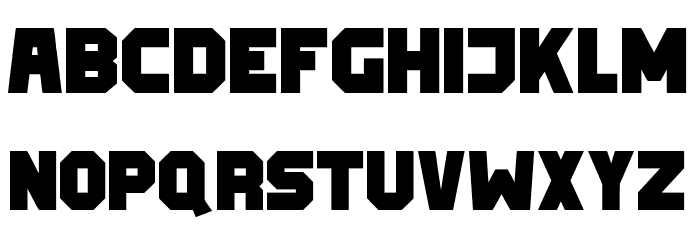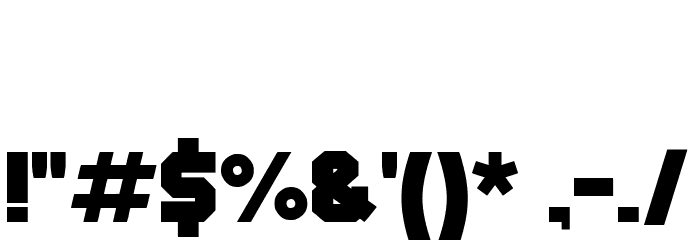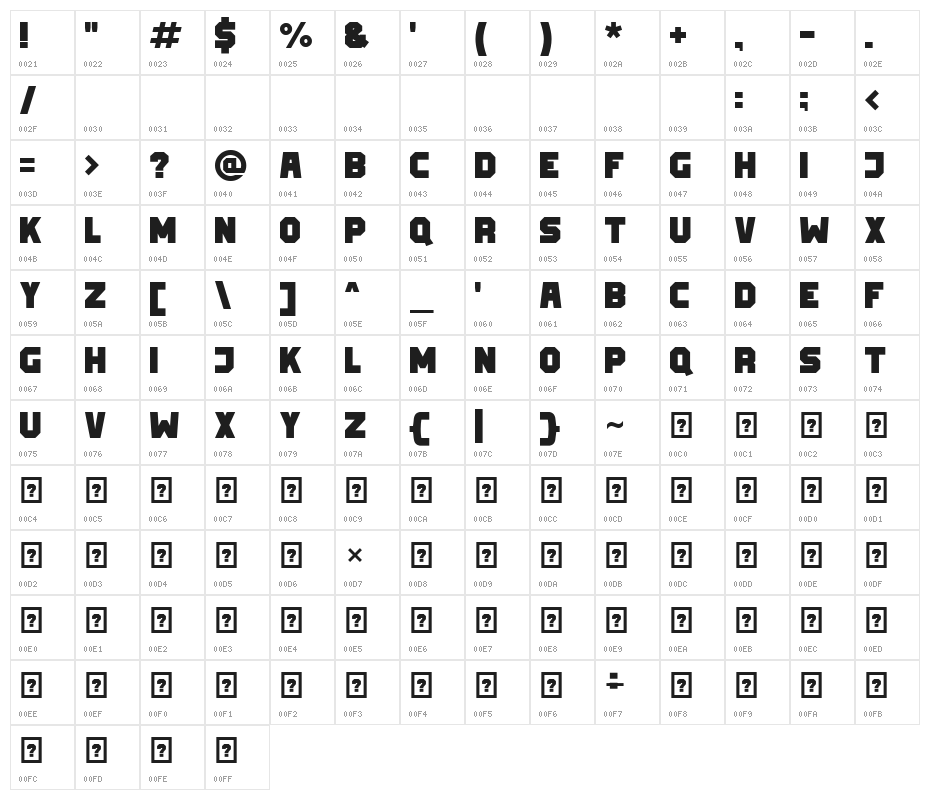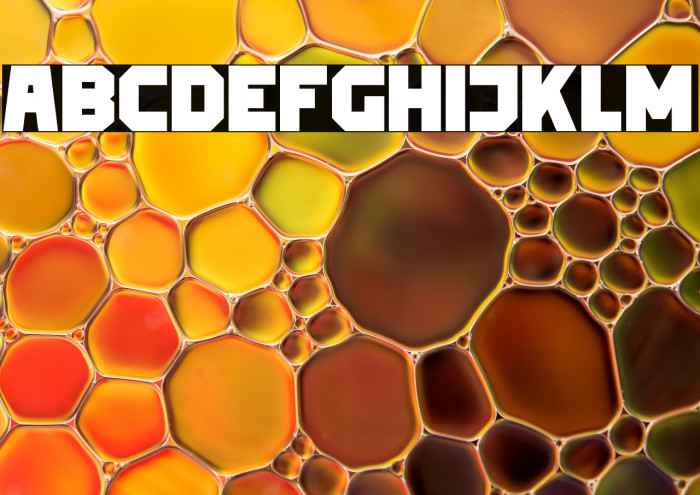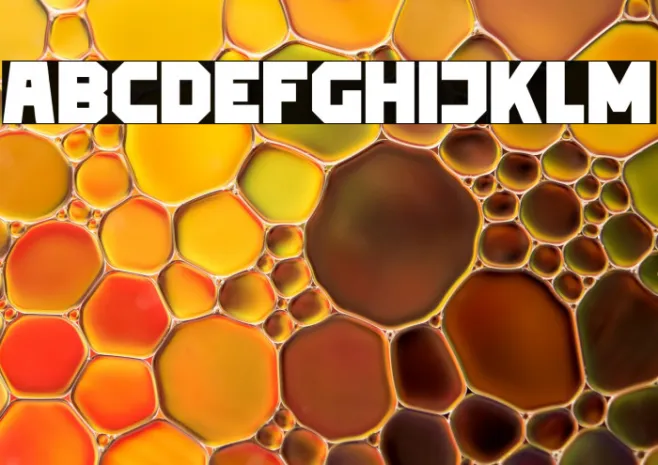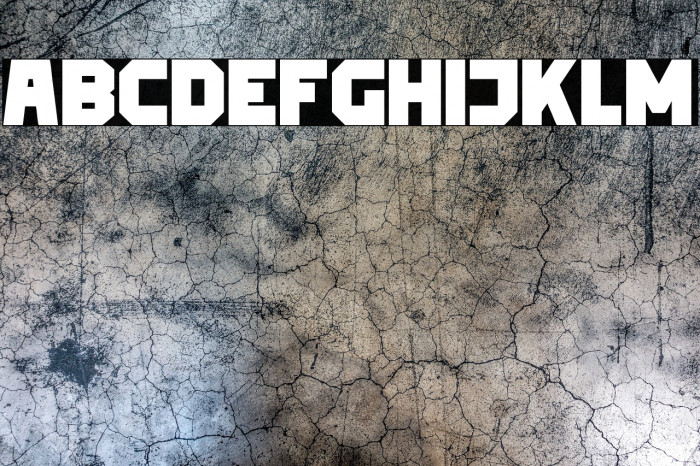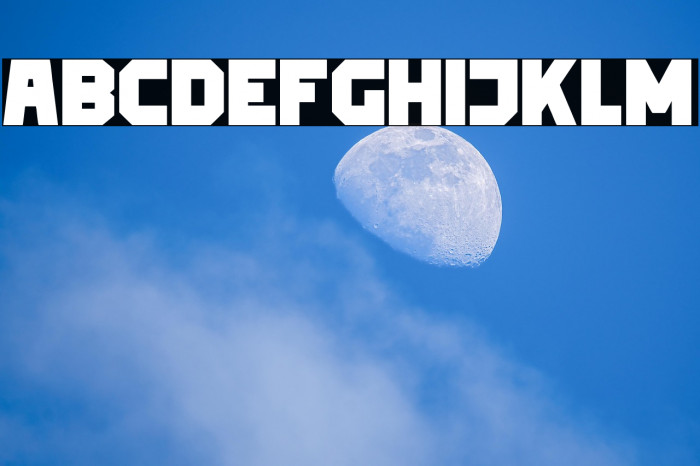
Inlanders Bold Font
This font features a bold and geometric design with strong, angular lines and a modern aesthetic. The characters are constructed with a blocky structure, giving them a robust and impactful appearance. The uppercase letters are uniform in height, while the lowercase letters maintain a consistent style, enhancing readability. The numerals and special characters follow the same bold and structured design, making them suitable for attention-grabbing displays. The overall look is clean and assertive, ideal for making a statement.
A bold, geometric font with strong, angular lines and a modern aesthetic.
- Font: Inlanders Bold
- Proposed Projects: Ideal for branding, posters, headlines, and any project requiring a strong visual impact.